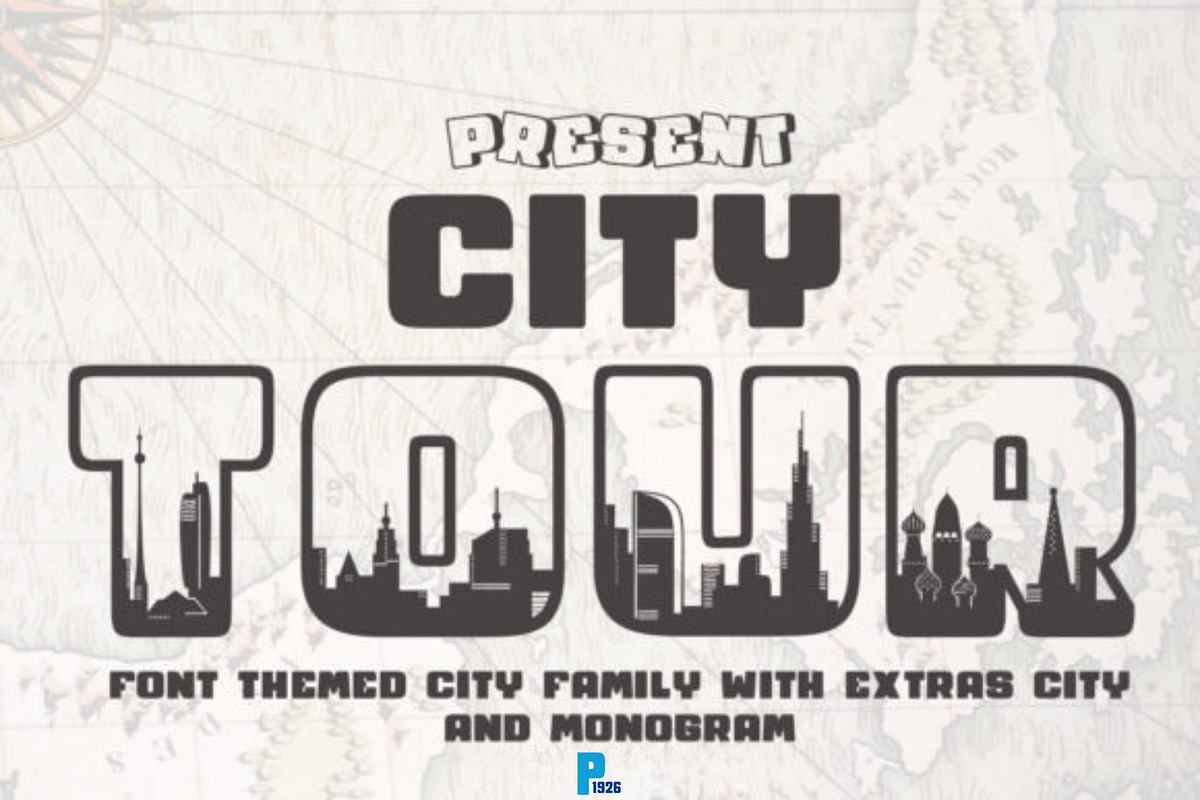
Please note, to use this font for commercial purposes, you must purchase the full version. City Tour is a sleek and modern sans-serif font that brings a contemporary, urban style to your designs. With its clean lines and balanced letterforms, this font is perfect for branding, logos, websites, posters, and other design projects that need a stylish and professional look. Whether you're creating a modern brand identity or a sleek promotional campaign, City Tour adds sophistication and clarity to your work. Test it out and enjoy free download access for personal use. Experience the modern, urban elegance of City Tour Font Free Download before purchasing the commercial license. Elevate your designs with the versatile style of City Tour.